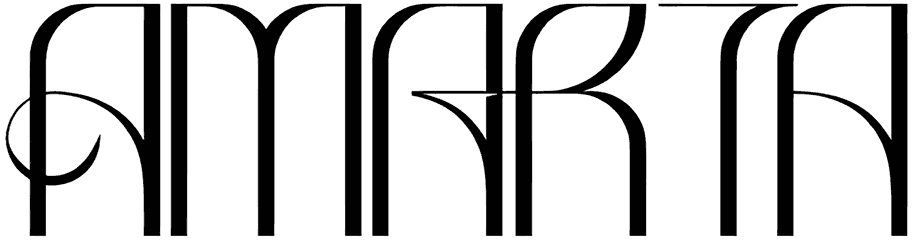
Amarta Font
If selecting a suitable font for designing eye-grabbing graphic content takes you lots of time and energy, then we would like to advise you to take the best possible advantage of a magical retro font such as the Amarta.
Aside from the lack of lowercase letters, since it provides you with two different styles, it can add a sense of confidence, dynamism, and trustworthiness to a wide range of creative ideas, such as movie posters, flyers, banners, or applications.